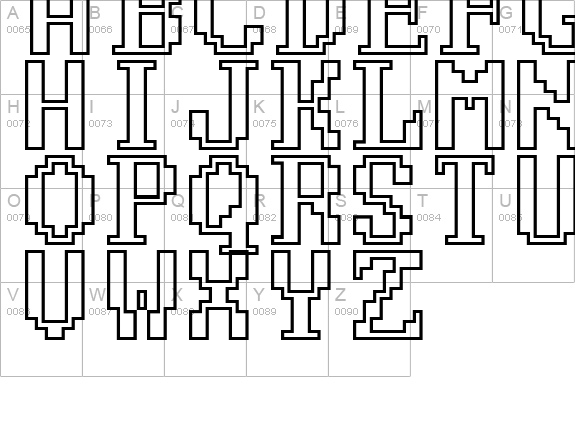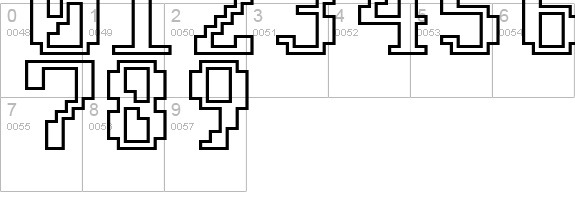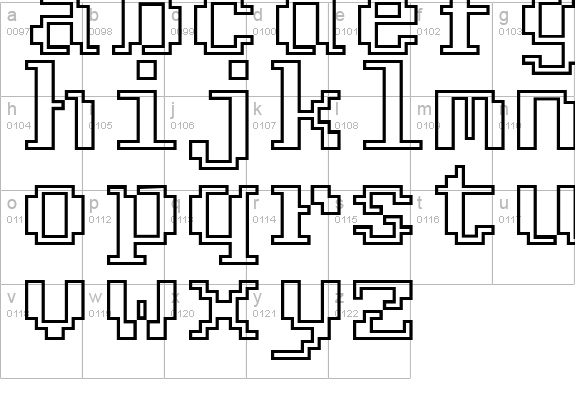
FixCystNeon Font Details
Introducing FixCystNeon font, a mesmerizing display typeface that will captivate your audience with its futuristic and edgy design. This font is perfect for creating attention-grabbing headlines, posters, logos, and any design project that requires a bold and modern touch. FixCystNeon font features a unique combination of sharp, geometric shapes and sleek, neon-inspired lines, resulting in a visually striking and highly versatile typeface. Its carefully crafted letterforms exude a sense of energy and innovation, making it an excellent choice for projects that aim to stand out from the crowd. But what sets FixCystNeon font apart is not only its captivating design, but also its accessibility. This font is available for free download exclusively at FontsMarket.com. Yes, you read that right - free! We believe that creativity should not be limited by budget constraints, and we are thrilled to offer FixCystNeon font as a freely available resource for designers, artists, and enthusiasts alike. Whether you're working on a personal project or a professional endeavor, FixCystNeon font will add a touch of modernity and sophistication to your designs. Its versatility allows it to be easily adapted to any visual context, making it a go-to choice for branding, advertising, and digital media. So, why wait? Elevate your designs to new heights with the captivating power of FixCystNeon font. Download it for free today at FontsMarket.com and unlock a world of creative possibilities. Let your imagination run wild and watch as your designs come to life with this extraordinary typeface.